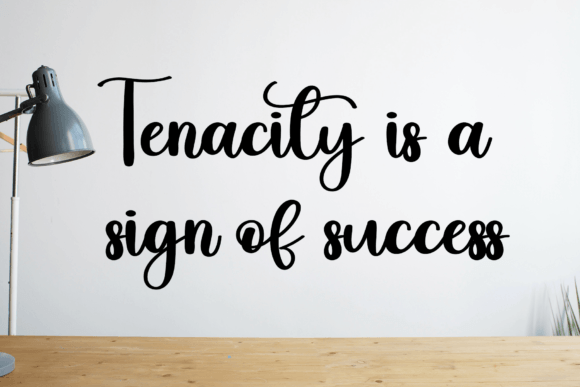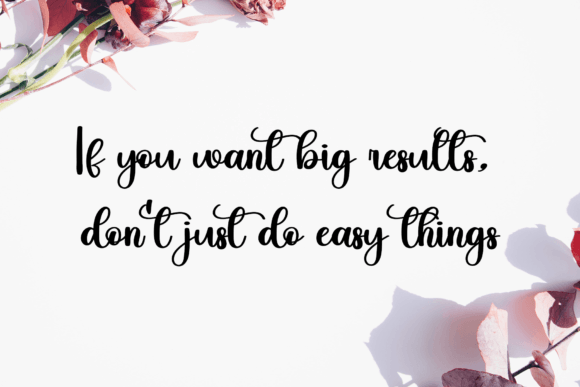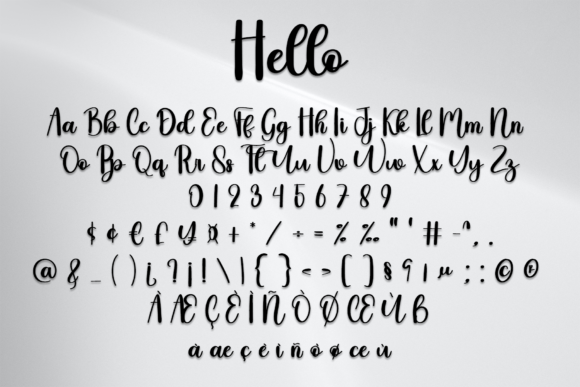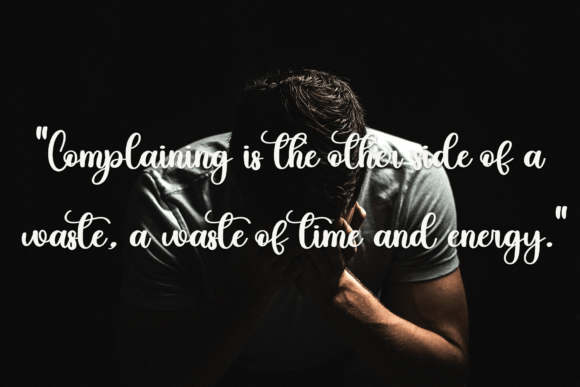
Hello Font: Elevate Your Designs with a Delicate Handwritten Touch
Hello Font is a beautiful, delicate handwritten font that has been carefully crafted to add a cool and unique touch to your designs. With its elegant and flowing lines, this font is perfect for creating stunning visual content that stands out from the crowd. In this article, we’ll explore the features and benefits of Hello Font, and show you how to use it to take your designs to the next level.
The Story Behind Hello Font
Hello Font is a carefully crafted handwritten font that is designed to bring a touch of elegance and sophistication to your designs. The font is the brainchild of a talented team of designers who wanted to create a unique and versatile font that could be used for a wide range of applications. Whether you’re a professional designer or a crafty DIY enthusiast, Hello Font is the perfect choice for anyone looking to add a personal touch to their designs.
Key Features of Hello Font
- Delicate Handwritten Style: Hello Font features a delicate handwritten style that is both elegant and sophisticated.
- Cool and Unique Design: The font’s unique design makes it perfect for creating stunning visual content that stands out from the crowd.
- Highly Versatile: Hello Font can be used for a wide range of applications, including writing letters, invitations, food products, titles, and more.
- Easily Readable: The font is highly legible, making it perfect for use in both digital and print designs.
Uses of Hello Font
Hello Font is a highly versatile font that can be used for a wide range of applications. Here are some ideas to get you started:
- Invitations and Party Decor: Use Hello Font to create beautiful invitations, party decorations, and other celebratory materials.
- Food and Beverage Branding: Add a touch of elegance to your food and beverage branding with Hello Font. Use it to create stunning labels, packaging, and marketing materials.
- Stationery and Journaling: Hello Font is perfect for creating beautiful stationery, journals, and planners.
- Titles and Headings: Use Hello Font to create stunning titles and headings for your blog posts, articles, and other written content.
Tips for Using Hello Font
Here are some tips for getting the most out of Hello Font:
- Pair it with Other Fonts: Hello Font looks great when paired with other fonts. Try pairing it with a bold sans-serif font for a striking contrast.
- Experiment with Colors: Hello Font looks great in a range of colors. Experiment with different colors to find the perfect combination for your design.
- Use it for Emphasis: Use Hello Font to add emphasis to key words or phrases in your design.
Hello Font is a beautiful, delicate handwritten font that is perfect for adding a touch of elegance and sophistication to your designs. With its highly versatile design and easily readable style, it’s perfect for use in a wide range of applications. Whether you’re a professional designer or a crafty DIY enthusiast, Hello Font is a must-have font for anyone looking to elevate their designs.